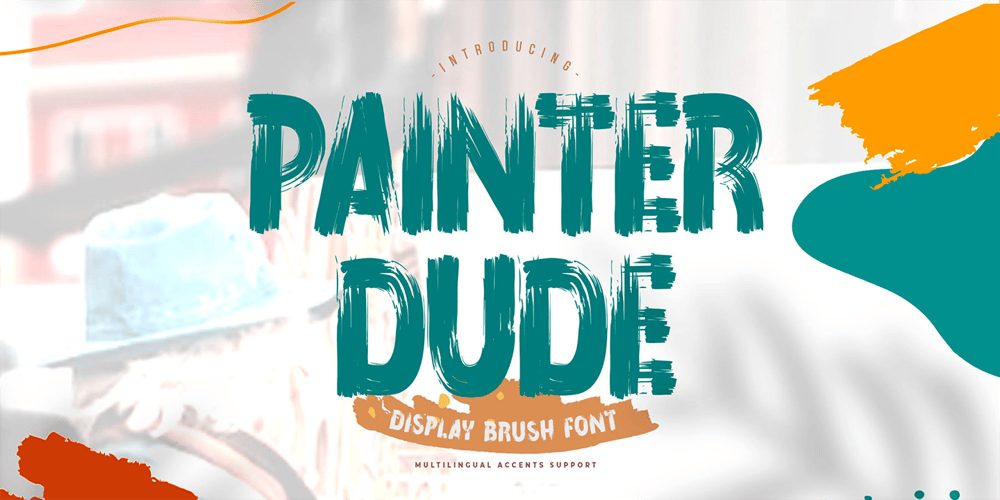
Painter Dude Font Family was designed by Abdul Malik Wisnu, Anang Fibriyanto and published by Gassstype. Painter Dude contains 1 styles and family package options. Hello Everyone, introduce our new product Font Painter Dude This Is Display Brush Font.This is a Textured Natural Style and classy style with a clear style and dramatic movement.That is has charming, authentic and relaxed characteristic more natural look to your text.